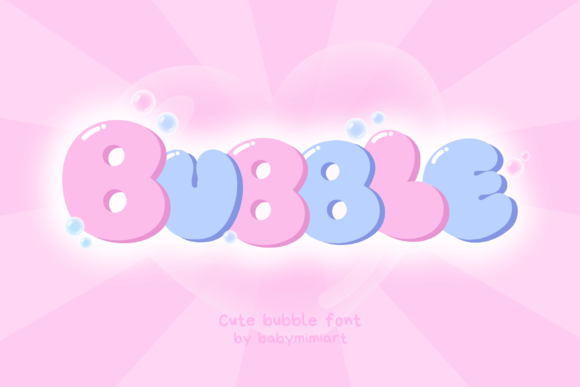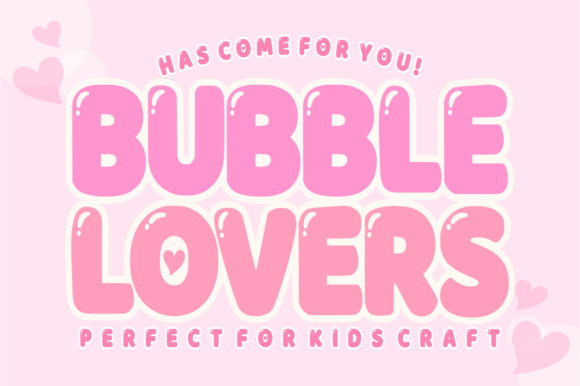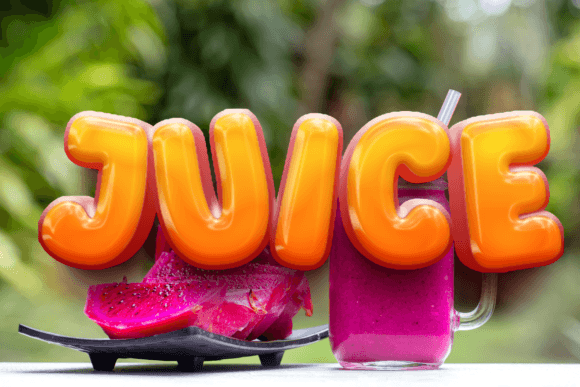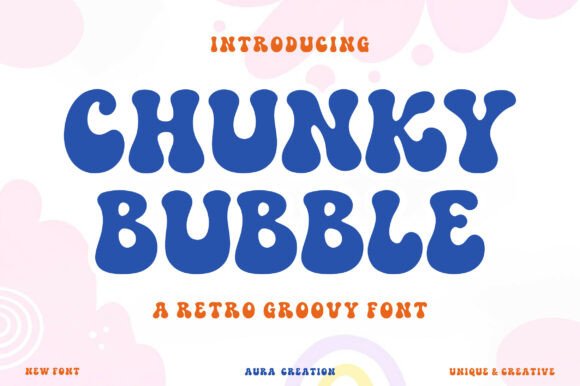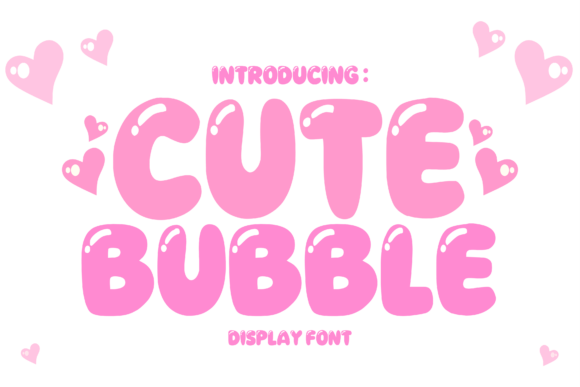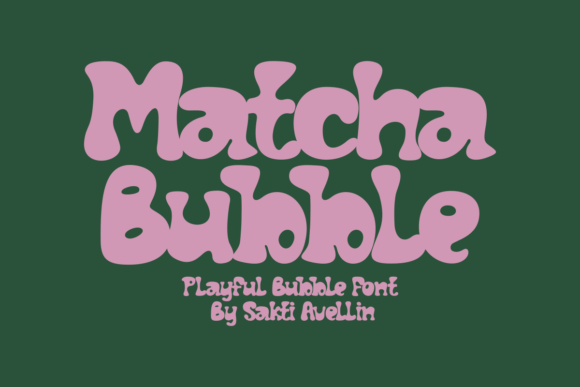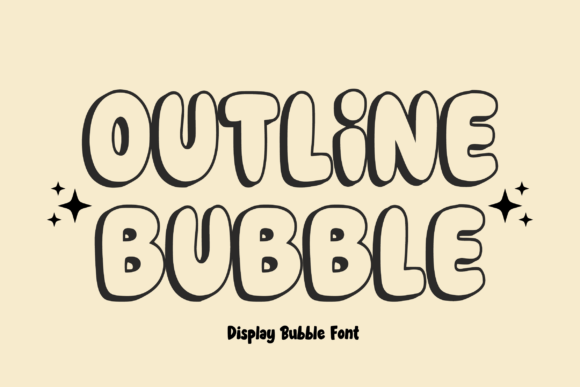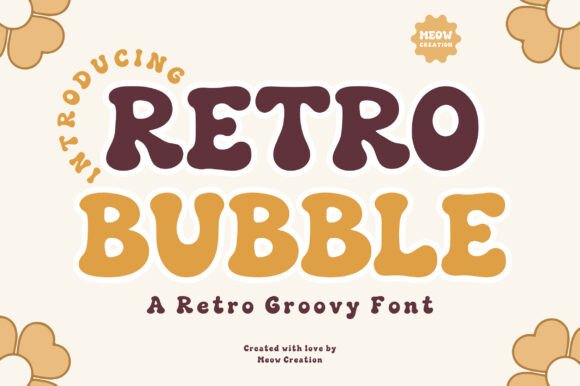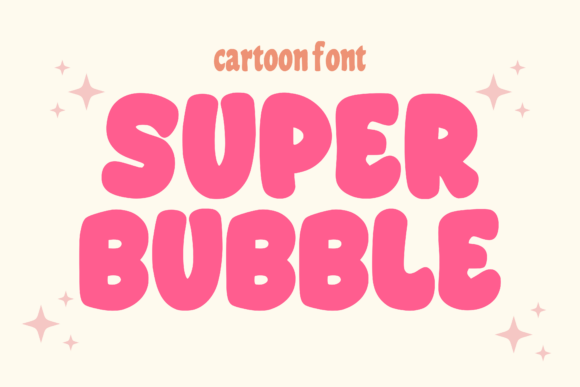
Best bubble font collection: 11 cheerful typefaces for designers who dare
Most designers ignore bubble fonts. They call them amateur, childish, useless. I used to agree. Until I realized something: a perfect bubble font breaks rules that actually need breaking.
It breathes. It invites. It stops thumbs on a crowded screen. This isn’t about 90s nostalgia or party flyers. This is about understanding volume, spacing, and how a letterform can feel soft without falling apart.
Let me show you what I mean.
Super Bubble Font
Let’s get specific. One version that actually delivers on that promise is Super Bubble Font. This isn’t a soft, rounded throwback. It is bold, modern, and aggressive with its curves.
I have used it across branding projects where I needed a bubble font that doesn’t whisper. It screams off a poster, sits perfectly on a sticker, and handles Cricut cuts without losing integrity. From comic panels to t-shirt sleeves, the legibility holds up. If you need personality without sacrificing structure, this is your workhorse. Stop forcing flat sans-serifs to be fun.
Outline Bubble Font
Now flip the script. Sometimes you do not want heavy volume. You want air. That is where Outline Bubble Font enters. It is childish, sure, but do not mistake that for weakness. This bubble font uses empty space to feel light, friendly, and incredibly approachable. I have reached for it when a client needed warmth without screaming.
Think greeting cards, classroom crafts, or a presentation slide that feels like a conversation. The easy readability means zero friction for the viewer. It just works. No pretense. No hard edges.
Chunky Bubble Font
Sometimes you need weight without losing the fun. Enter Chunky Bubble Font. This bubble font brings serious thickness to the table. Rounded edges, yes. But also structure. The spacing is unusually clean for a playful typeface, which means your text stays readable whether it is screen printed on a t-shirt or blown up on a billboard.
I have used it for kids’ branding and streetwear drops alike. The smooth curves handle large sizes beautifully. No muddy shapes. No awkward gaps. Just bold, friendly confidence.
Bubble Font
Let us be honest. Sometimes a project just needs to be cute. No irony. No edge. That is where this one shines. Bubble Font delivers exactly what the name promises: soft, rounded letters with zero attitude. I reach for this bubble font when I want a genuine smile. Think children’s books, birthday logos, or a greeting card that actually feels warm.
The cheerful vibe is consistent across every character. No weird surprises. No hidden sharpness. Just charm from the first letter to the last. If your brief calls for lighthearted and joyful, stop overthinking. Use this.
Matcha Bubble Font
Let me introduce a personal favorite. Matcha Bubble Font takes the classic bubble font and drags it through two decades of style. The 70s rounded retro meets modern kawaii sweetness. The result? Ultra-fat, energetic characters that actually look like they are moving. I have deployed this for YouTube thumbnails and aesthetic packaging alike.
The heavy weight gives you professional structure. The soft edges keep everything approachable. It also prints beautifully on mugs, tote bags, and t-shirts. Pair it with a clean sans-serif or layer pastel gradients. Either way, this one has range.
Bubble Lovers Font
One more for your toolkit. Bubble Lovers Font is exactly what the name suggests. Pure joy wrapped in plump, rounded characters. I rarely get excited about craft-focused typefaces, but this bubble font won me over. The uppercase letters are bold and bouncy without losing readability. It cuts smoothly on Cricut and Silhouette machines.
Works in Canva, Procreate, and Illustrator too. I have seen it on baby onesies, birthday banners, and candy packaging. The soft rounded style keeps everything welcoming. No sharp edges. No cold vibes. Just sweet, modern positivity.
Tarala Bubble Font
Let me end with something truly squishy. Tarala Bubble Font does not just look like a bubble font. It looks like it might pop if you squeeze it. The forms are maximally rounded, almost liquid. I normally avoid typefaces this cute, but for kids’ media and toy packaging? This one delivers.
The bold, simple shapes stay readable at any size. Perfect for animated titles, sticker designs, or educational materials that need warmth. That gentle glow in the preview is not a trick. The font actually feels soft. If your brief calls for childlike wonder and zero pretension, stop searching.
That is the full lineup. From squishy to retro, outline to chunky, each bubble font serves a different purpose. No more guessing. Pick the one that fits your brief, download it, and let your work breathe. Typography should never be boring.